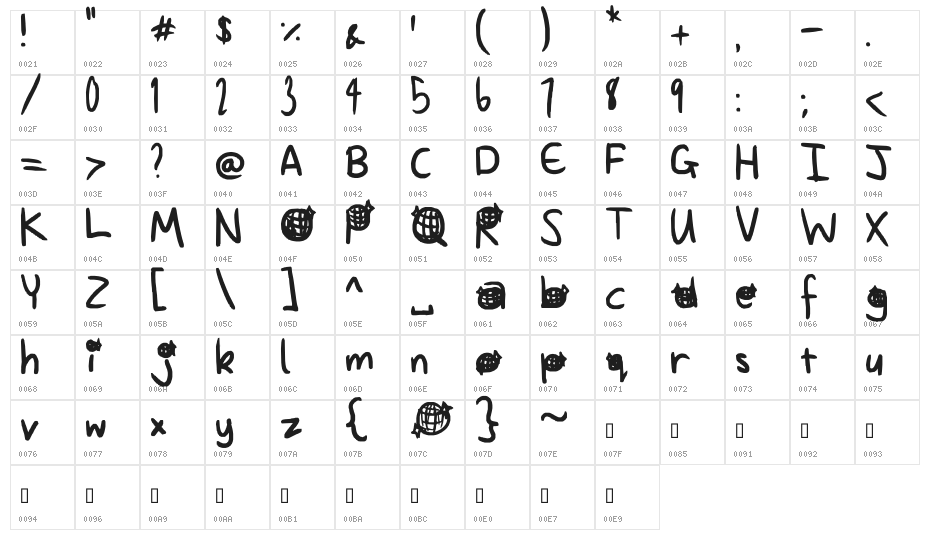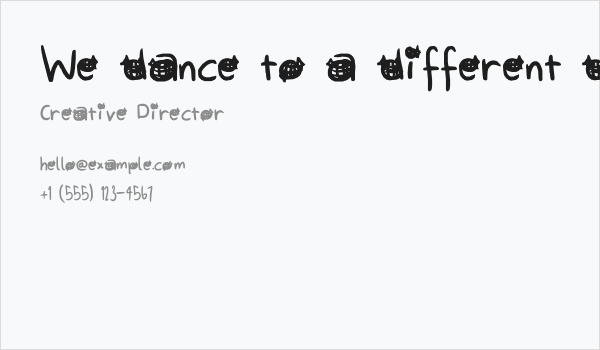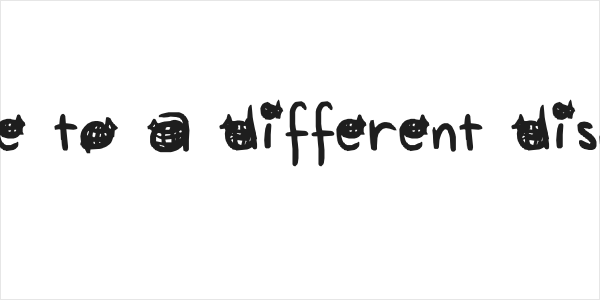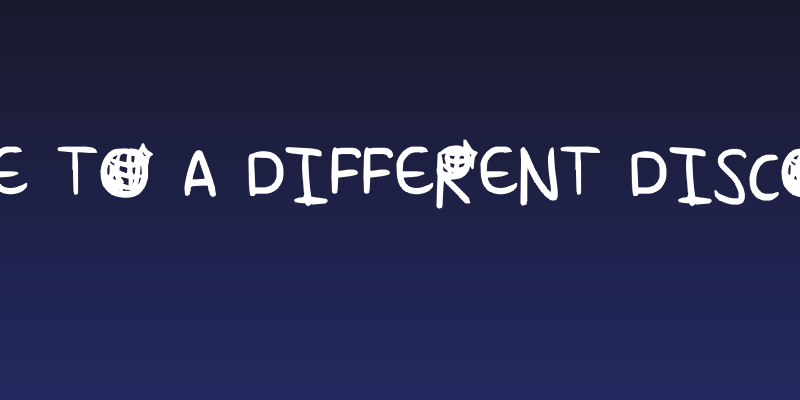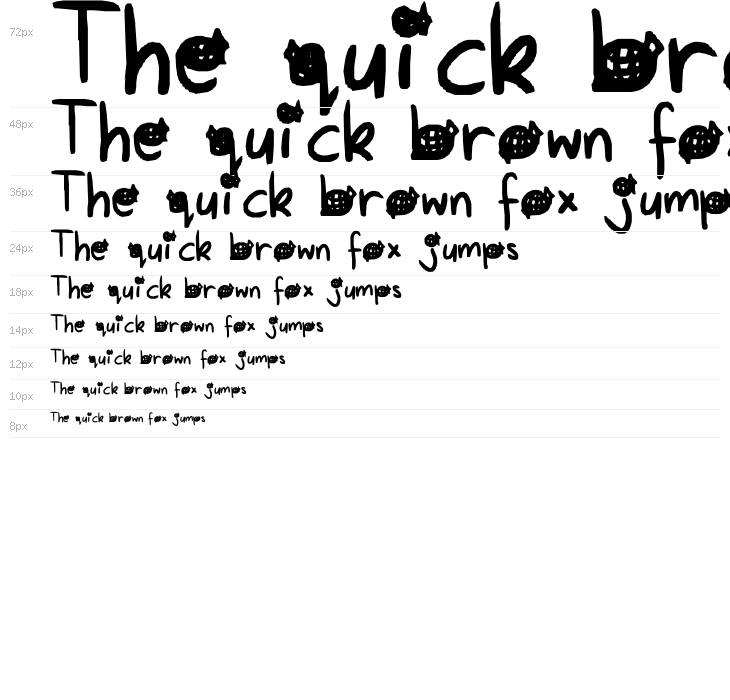
We dance to a different disco, honey Font
We dance to a different disco, honey Description
This font exudes a playful and energetic vibe, characterized by its handwritten style that mimics the look of casual, freeform writing. The letters are unevenly shaped, with a dynamic flow that suggests movement and spontaneity. The uppercase and lowercase letters maintain a consistent style, with some letters featuring unique embellishments, such as the star-like dots on the 'i' and 'j'. The numbers and special characters follow the same lively aesthetic, making the font suitable for creative and informal applications. Its bold strokes and irregular forms give it a distinctive appearance that stands out.
| Proposed Projects | Ideal for creative projects such as children's books, party invitations, posters, and social media graphics where a fun and informal tone is desired. |